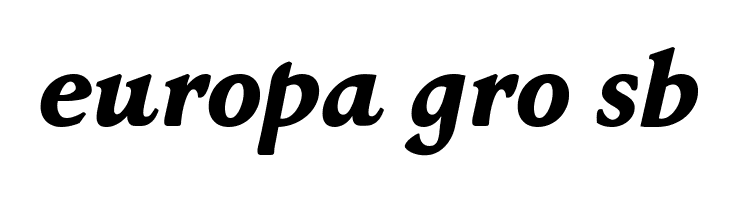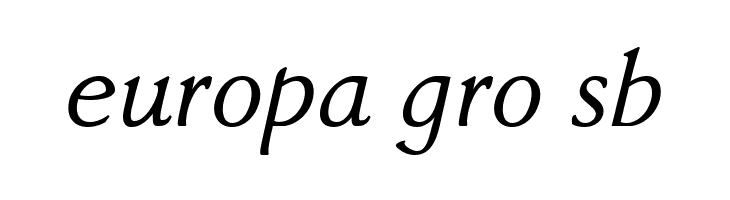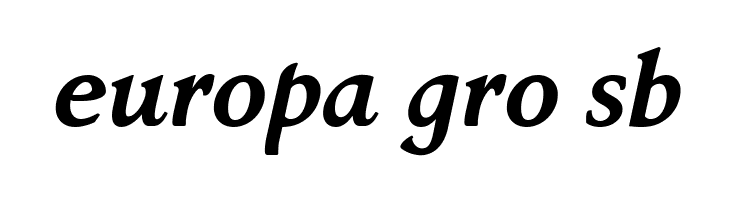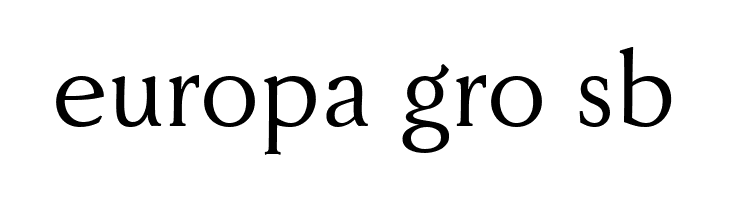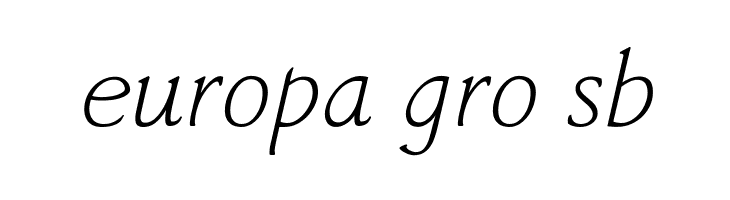
• FaberSerifReduced-66KraftigKursiv
Elegant serif font with italic slant and moderate contrast.
• FaberSerifReduced-46LeichtKursiv
A refined serif typeface with a slight italic slant and light weight.
• Faber Serif Reduced 86 Schwer Kurs
A bold, italic serif font with a classic yet dynamic style.
• Faber Serif Reduced 56 Kursiv
An elegant serif font with a classic italic slant, perfect for sophisticated designs.
• Faber Serif Reduced 76 Halbfett Kur
Elegant serif font with italic style and moderate contrast.
• Faber Serif Reduced 55 Normal
A classic serif font with elegant strokes and moderate contrast.
• FaberSerifReduced-85Schwer
A bold, classic serif font with a modern touch, ideal for authoritative and traditional designs.
• FaberSerifReduced-56Kursiv
An elegant serif font with a classic italic style and refined appearance.
• Faber Serif Reduced 46 Leicht Kurs
A light, elegant serif font with a slight italic slant and classic charm.
• FaberSerifReduced-86SchwerKursiv
Elegant serif font with bold, italicized characters and moderate contrast.